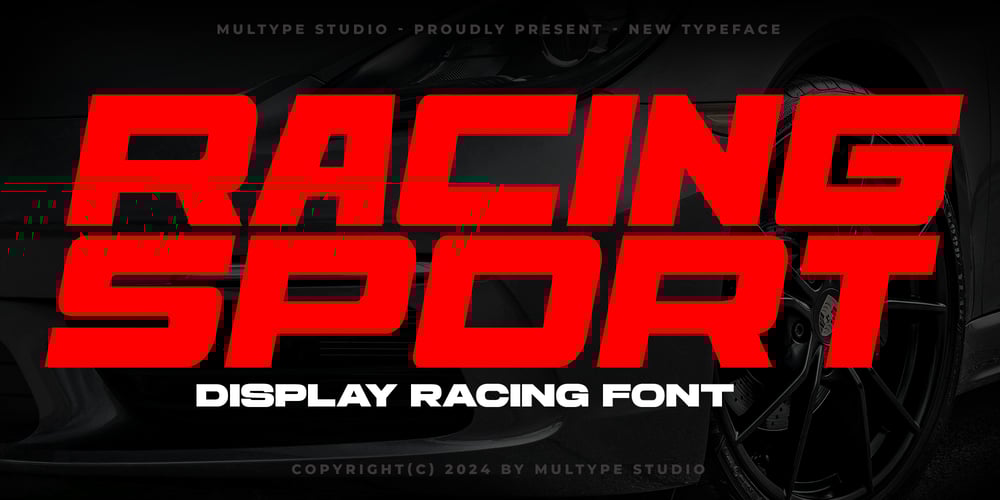
Racing Sport Display Font Family was designed by Mulia Yanto and published by Multype Studio. Racing Sport Display contains 1 styles and family package options. Racing Sport Display is a font with a racing and sport theme.The rounded, slanted shape makes this font stand out because of its thickness and looks strong and very sporty.Racing Sport Display is perfect for racing product logos, racing game covers, sporting events, automotive posters, automotive magazine covers, branding, product designs, labels and other creative projects.What’s Included : ALL CAPS Numbers & Symbols Works on PC / Mac Simple installations Accessible in the Adobe Illustrator, Adobe Photoshop, Adobe InDesign, even work on Microsoft Word PUA Encoded Characters, Fully accessible without additional design software. Multilingual support Thank you for your purchase!Hope you enjoy with our font!